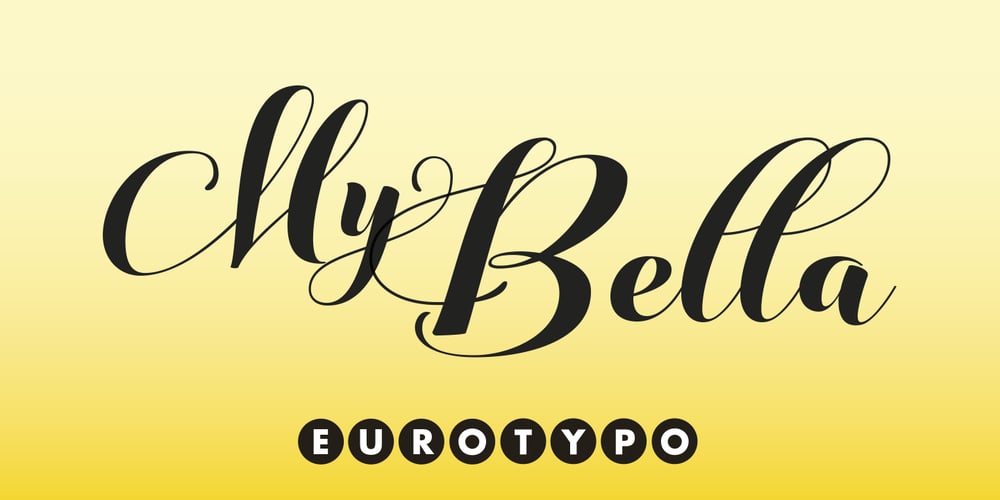
MyBella Font Family was designed by Carine de Wandeleer and published by Eurotypo. MyBella contains 1 styles and family package options. MyBella is a casual script font, its slight bounce and intentional irregularity gives your words a wonderful flow. The thick and thin strokes in this typeface combine balance and harmony. With OpenType features such as Stylistics and Contextual alternates, Swashes, Ligatures, and Stylistic sets specially designed to help your creativity and make it easier to make the impressive and elegant typographic work. MyBella looks lovely on wedding invitations, greeting cards, logos, business-cards, fashion, magazines, food packaging and menus, book covers and whatever your imagination holds!